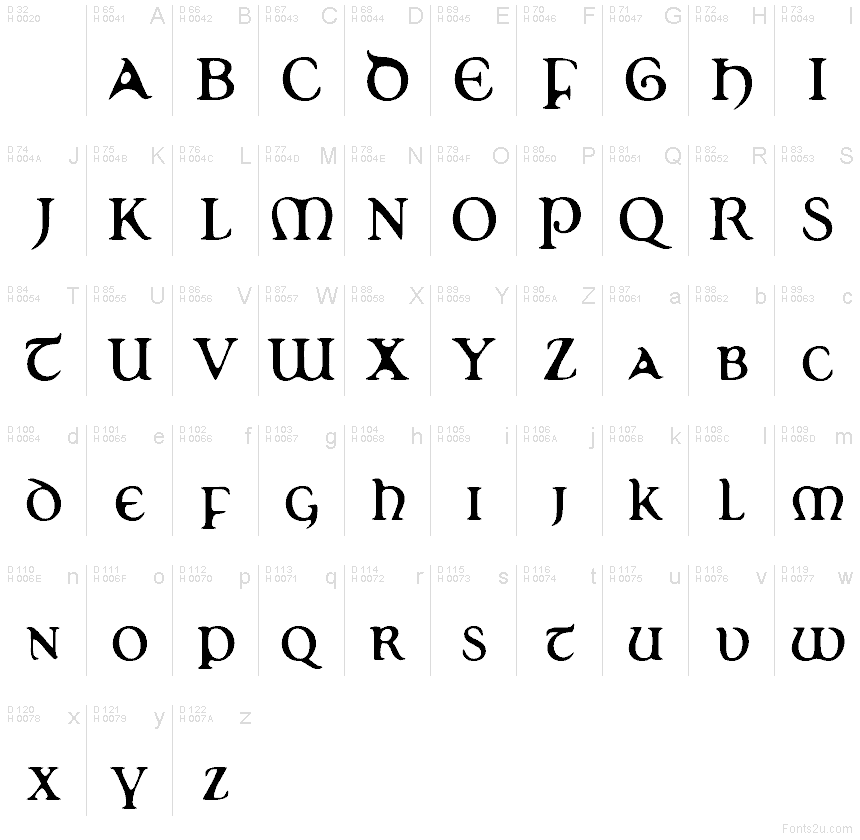
CSVilmaDrawn-Regular Demo
CS Vilma Drawn font by Craft Supply Co. is a gothic-type font with an artistic celtic flair that speaks of classic eras. The serifs carry with them unique shapes designed in an exaggerated manner by making some thick while others are thin and subtle. Whimsical, the free serif font adopts a varied baseline which constantly varies in each letter.
Professional and safe, CS Vilma Drawn is a multipurpose typeface that can blend seamlessly into different projects like branding designs, logo designs, posters, magazines and newspapers headlines and paragraphs, banners or brochures titles to name just a few ideas.